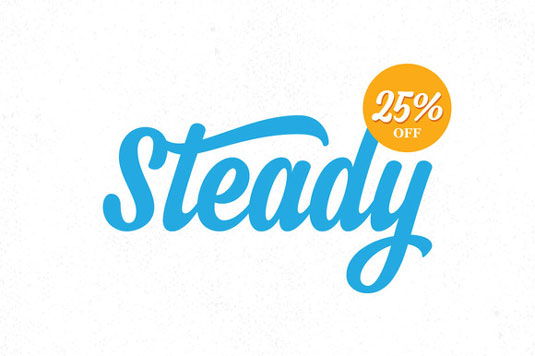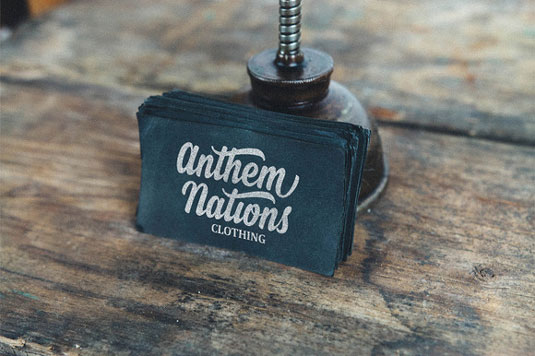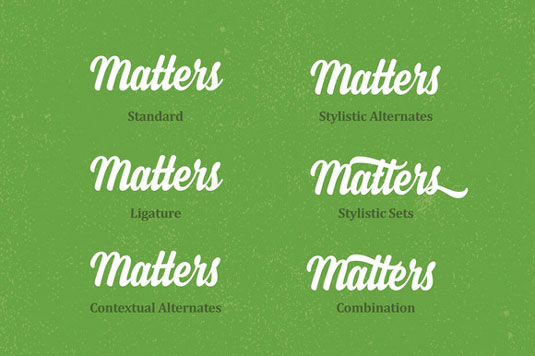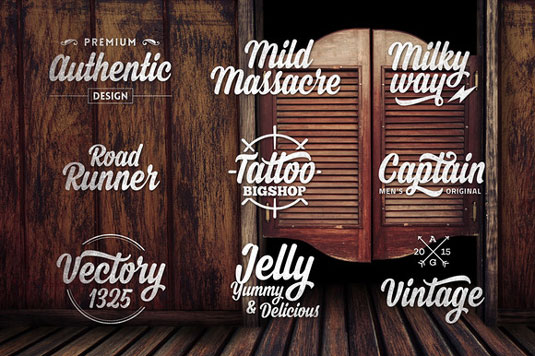
Font of the day: Steady
Every day we showcase the best fonts on the web. Today it's Steady from Artimasa.
Steady from Artimasa
The team at small type design and lettering studio Artimasa are behind today's typeface of choice, Steady. A script typeface with personality, its flowing characters are ideal for creating eye-catching logos, packaging, headlines, posters and much more.